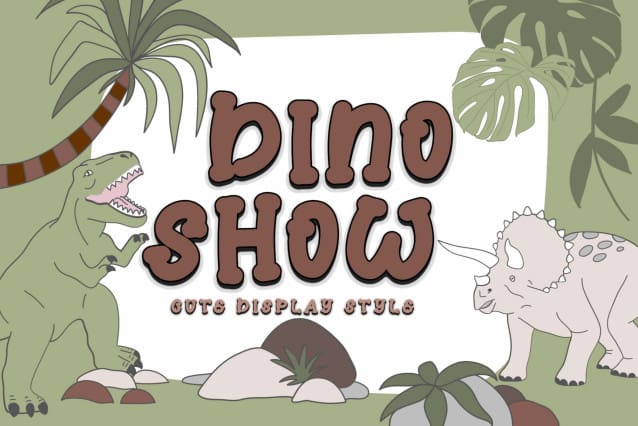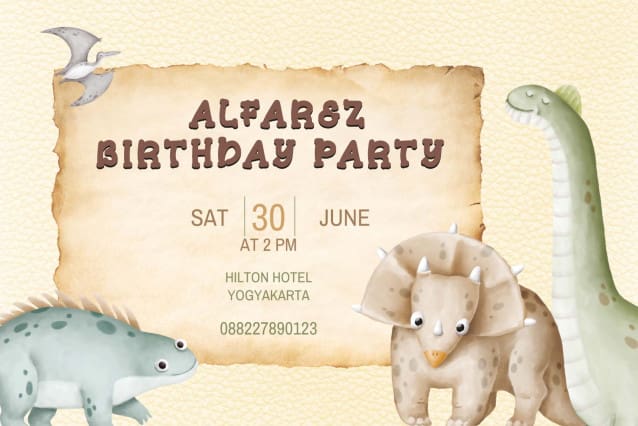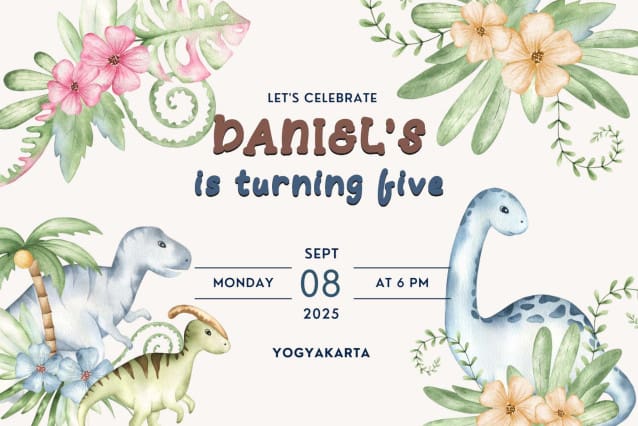
Dino Show Font
Dino Show Font is a cute and unique display font. This font is equipped with uppercase, lowercase, numerals, punctuations and multilingual support. Very suitable for comics, logos, banners, posters, prints, stickers, branding, cartoons, kids, back to school, summer, Christmas and others.